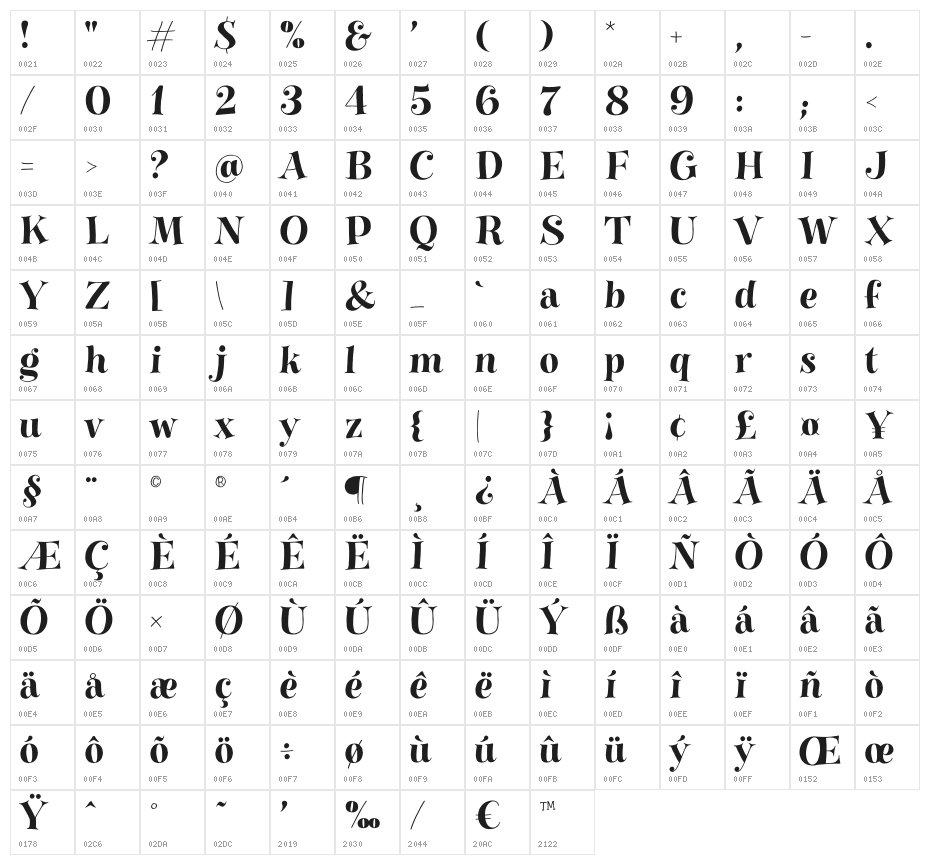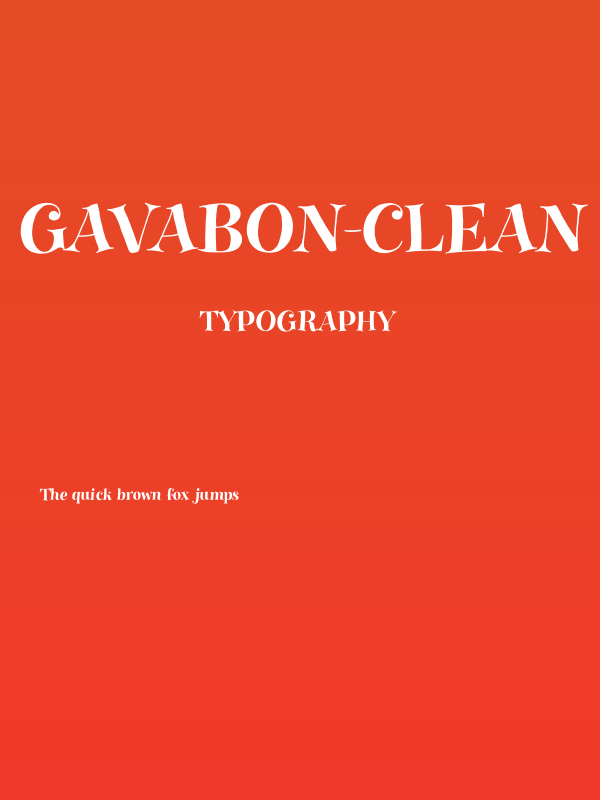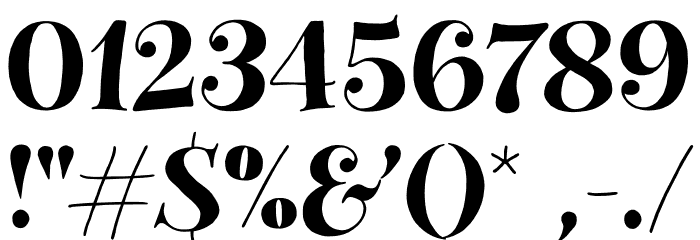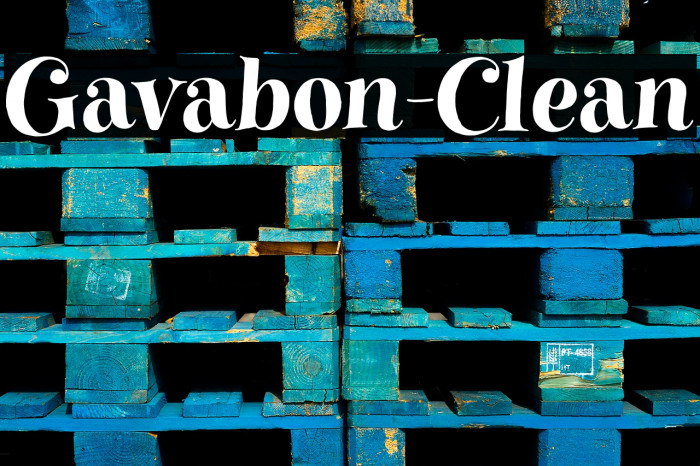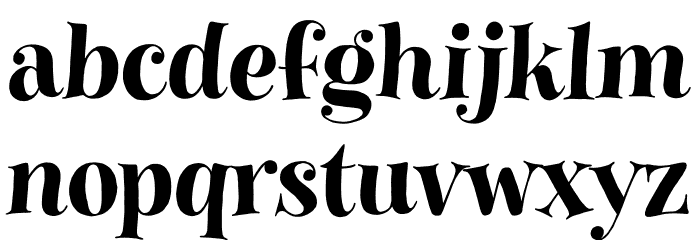
Gavabon-Clean Font
Gavabon-Clean Description
This font exhibits a bold and expressive style with a distinctive flair. The uppercase letters are characterized by their dramatic curves and thick strokes, giving them a strong presence. The lowercase letters maintain a similar boldness, with unique flourishes that add a touch of elegance. The numerals are equally bold, with a consistent stroke weight that ensures readability. Special characters are designed with the same attention to detail, featuring intricate curves and bold lines. Overall, this font combines traditional serif elements with a modern twist, making it suitable for a variety of design applications.